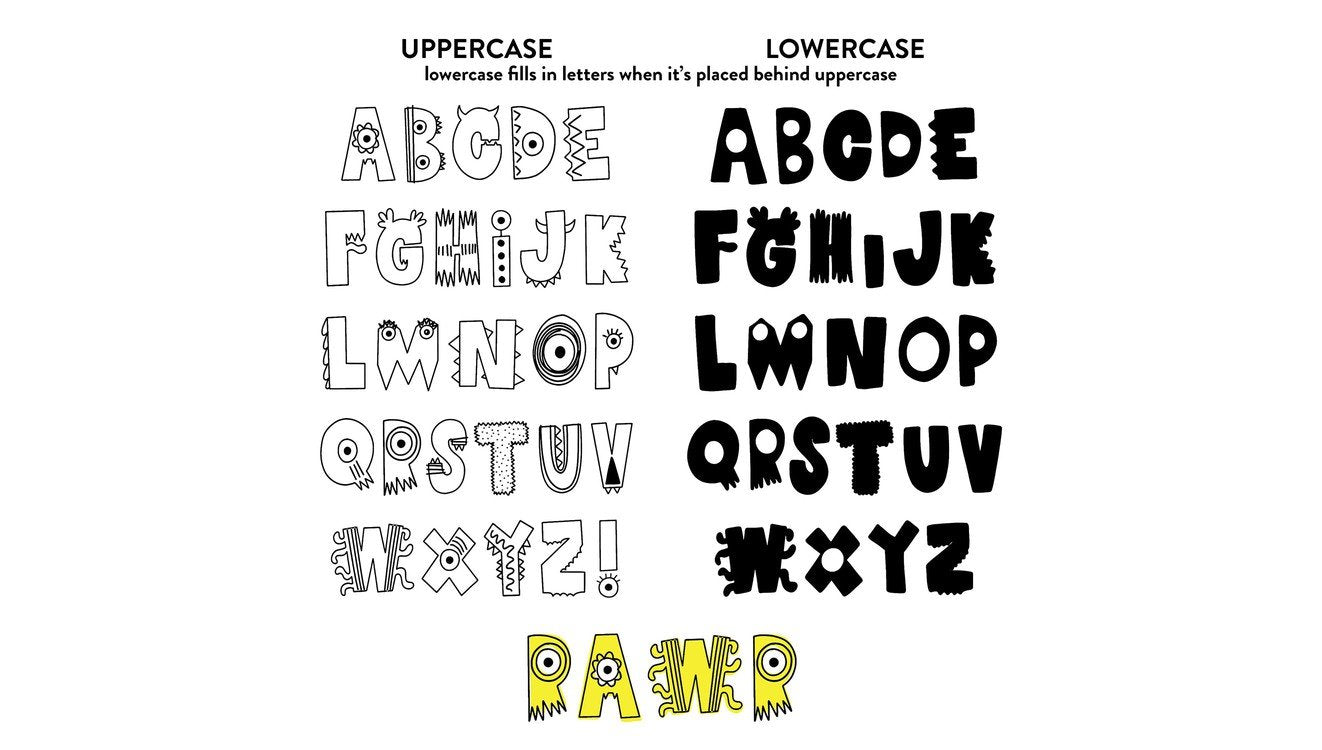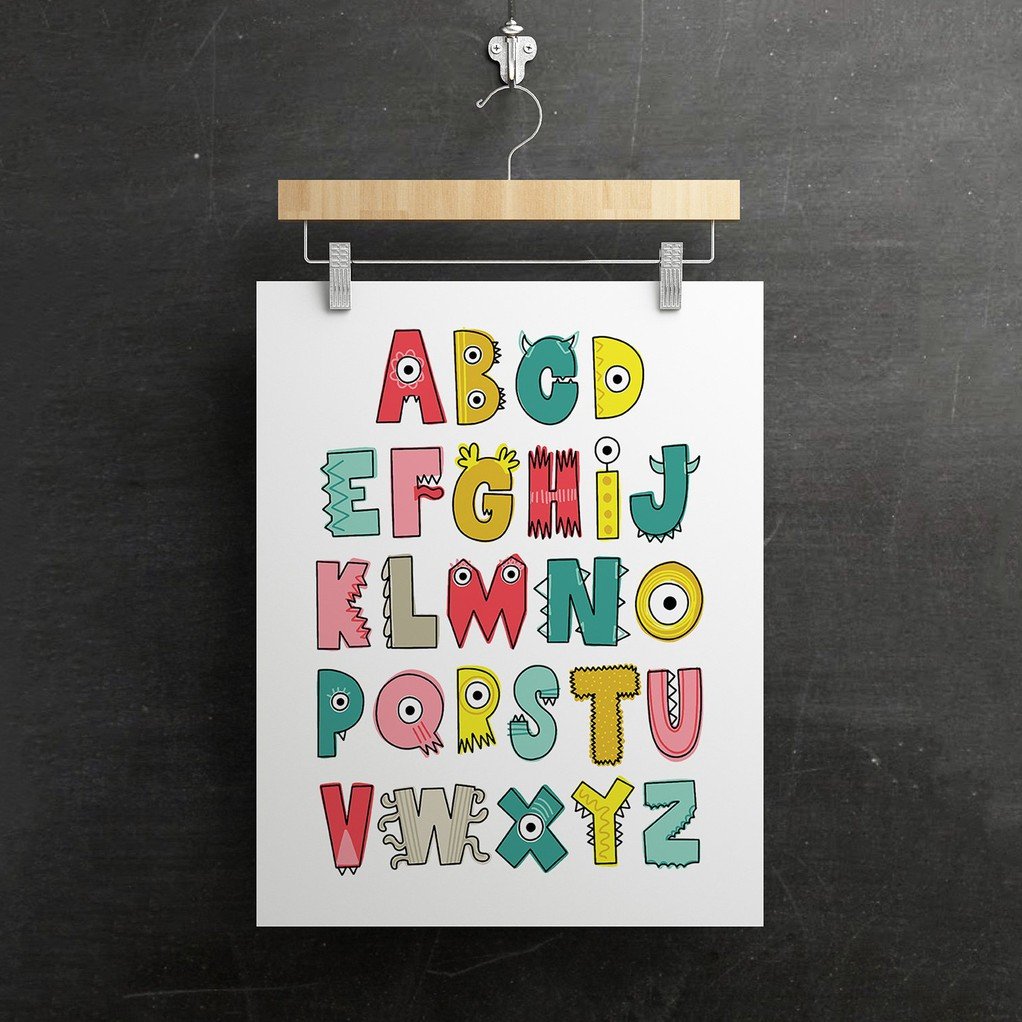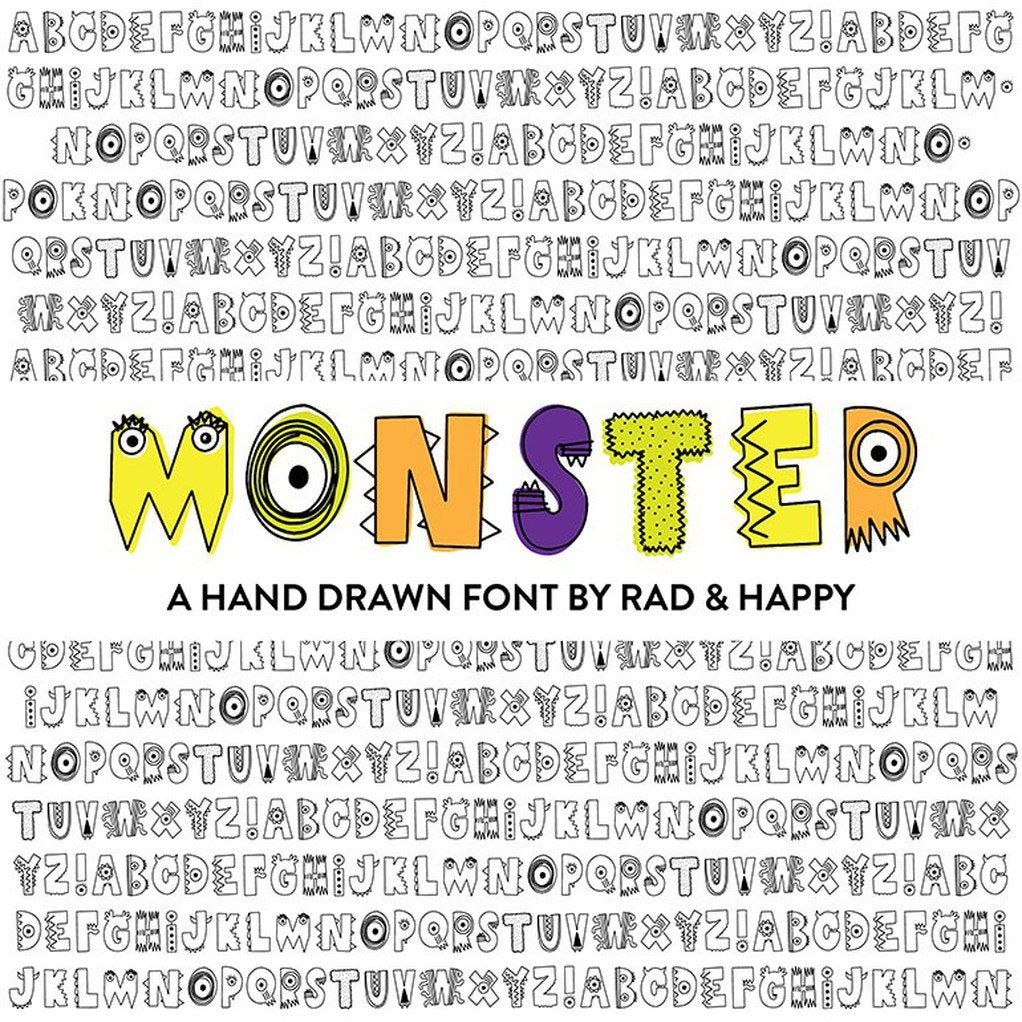
Monster Font
Okayyyy I am pretty sure this goes without saying but this font is SO FUN!!! It makes for the coolest coloring pages for birthdays, the raddest Halloween party invites, and the best kids’ party fonts or creative classroom projects—just wait till you see it shine! If you use a program where you can stack the font (like Adobe Illustrator), type it in all caps for outlines and layer the same word in lowercase to fill it with color—trust me, it’s a game-changer to win you all the cool mom points for SURE!
Why It’s Awesome:
- Made for Fun – I designed it to spice up your projects!
- Super Creative – Perfect for coloring pages and party invites.
- Easy to Stack – Layer it for a cool, colorful effect.
Seriously, if you want a font that adds a blast of fun to your birthday pages or Halloween invites, this is it—I promise it’ll make your designs pop. It’s been a joy to create, and I’m so stoked for you to start playing with it!